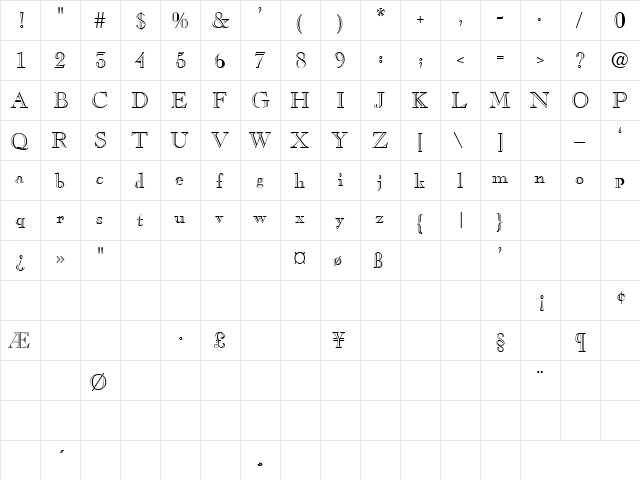
Stone Free 3 Regular
Design Context for Stone Free 3 Typeface
Stone Free 3 takes a measured approach to typography — its balanced proportions and neutral character make it a reliable workhorse for both digital and print work.